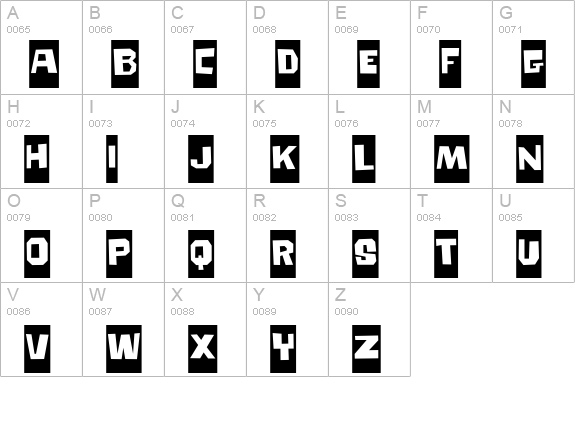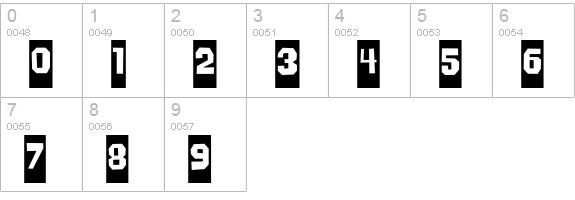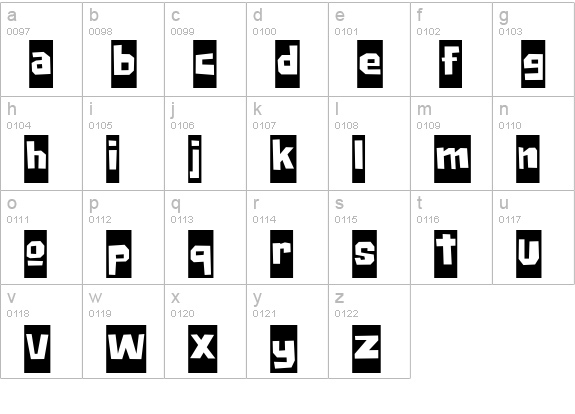
Big Chump BTN Reversed font is a bold and eye-catching typeface that demands attention. With its unique reversed style, this font adds a touch of creativity and playfulness to any design project. Perfect for headlines, posters, and logos, Big Chump BTN Reversed makes a statement with its big, chunky letters. What's even better is that this font is available for free download at FontsMarket.com. Get your hands on this versatile and striking typeface today and take your designs to the next level!